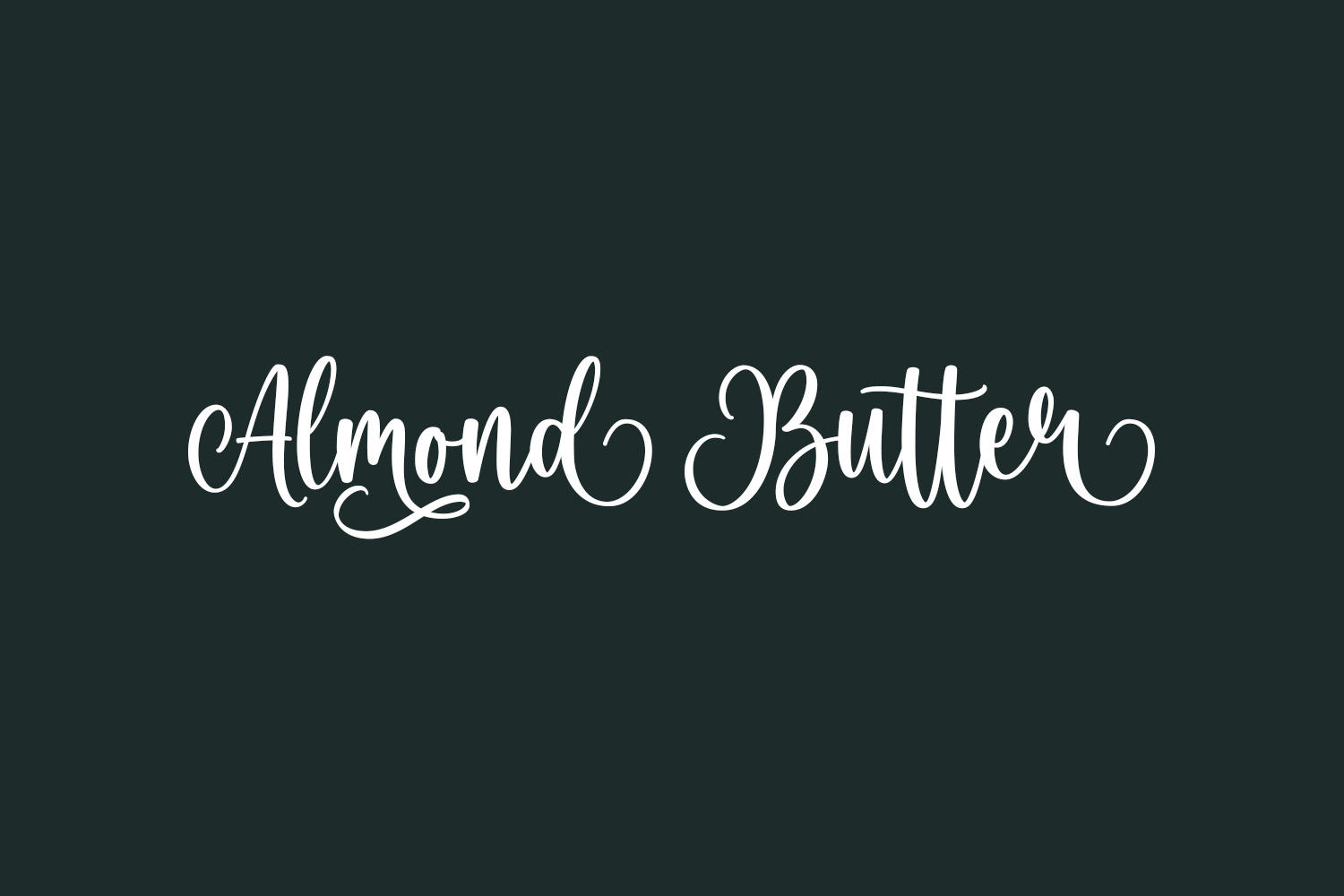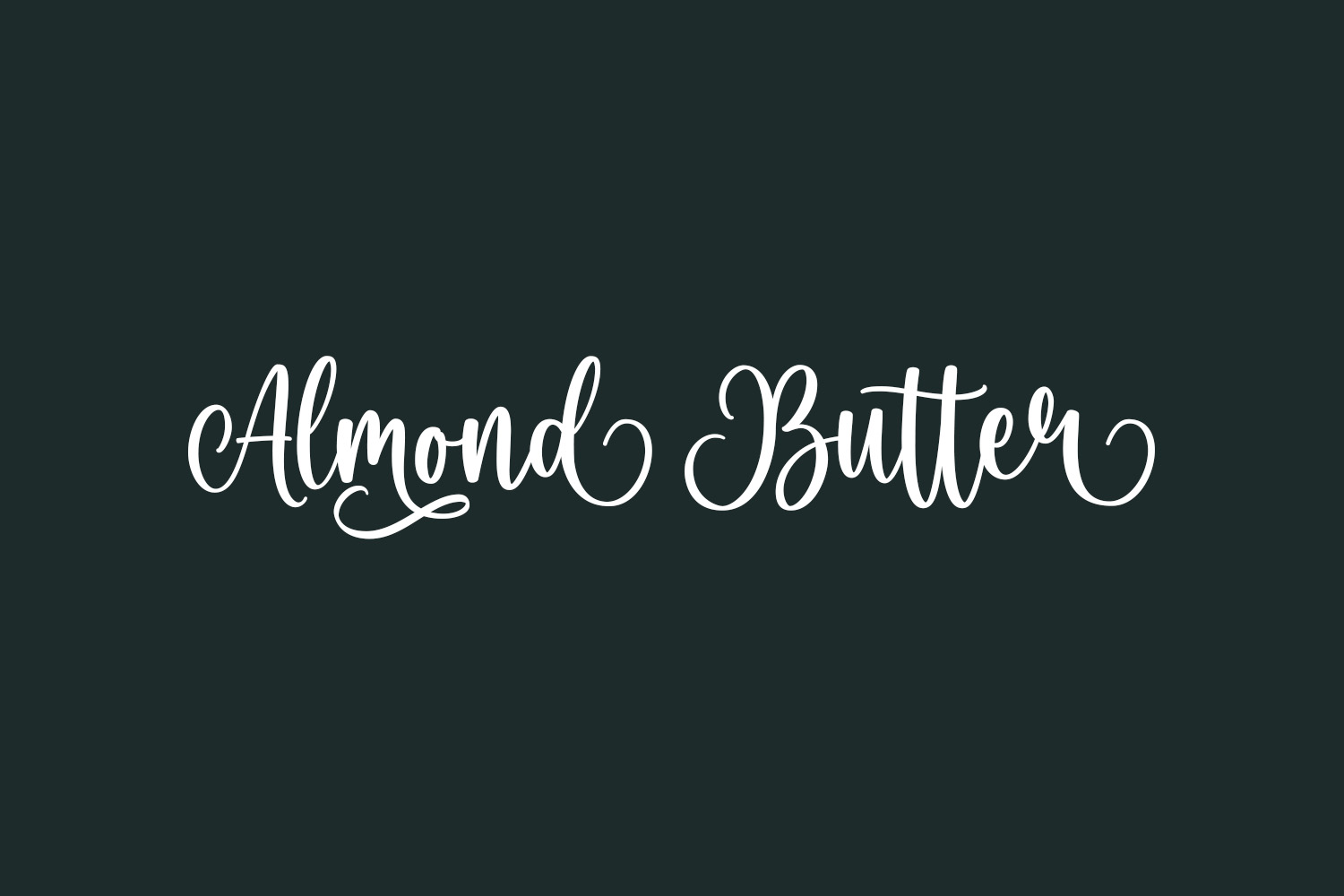
Almond Butter Free Font is a delicate, elegant, and flowing handwritten font that adds a touch of grace and refinement to any project. With its thin and feminine lines, it exudes a sense of elegance and sophistication. Its cursive style gives it a personal touch that makes it perfect for creating invitations, romantic quotes, or other romantic designs. The font’s clean lines and natural flow make it ideal for a variety of design projects, from social media graphics to wedding invitations. And with it being free, it’s a great choice for any designer looking to add a touch of elegance to their work.